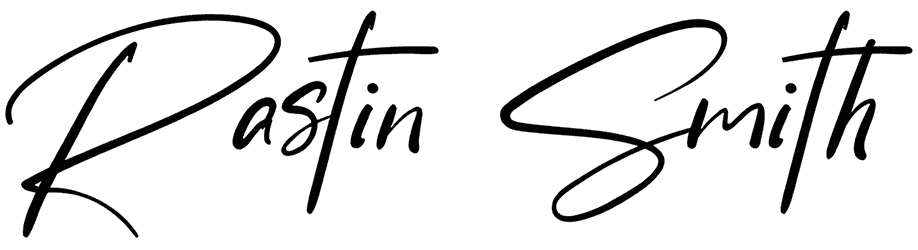
Rastin Smith Font
This signature font with an elegant design can convey a sense of sentimentalism. Due to its human, organic quality, Rastin Smith font is perfect for announcements, short poems and proverbs, and writing on photos. This classic and dramatic font can impress your audiences but be aware the font might not be easy to read.